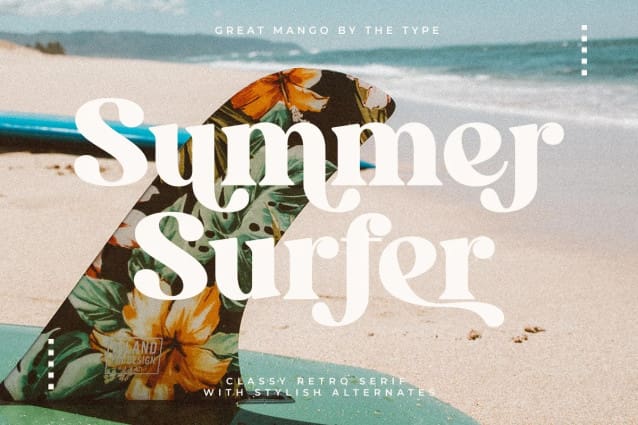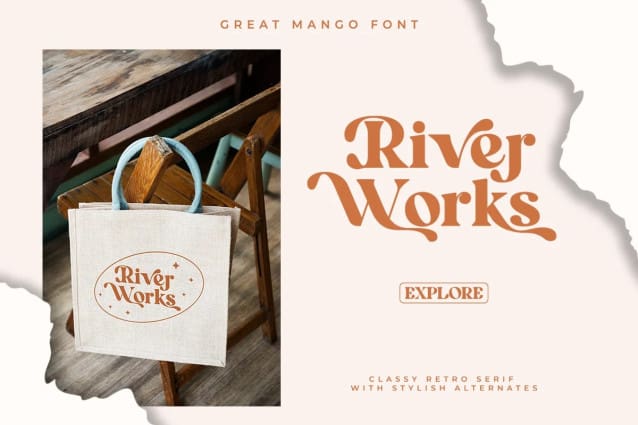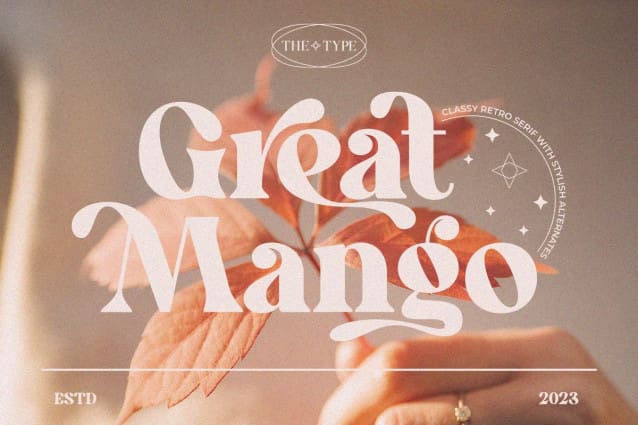
Great Mango Font
Great Mango Font – a Stylish serif font Inspired by trendy and stylish. This font can look more classic (conservative) serif, which is perfect for texts. So same he can be more expressive, playing and more modern with alternative substitutes and ligatures, try to play with them and you will get the uniqueness in your project.